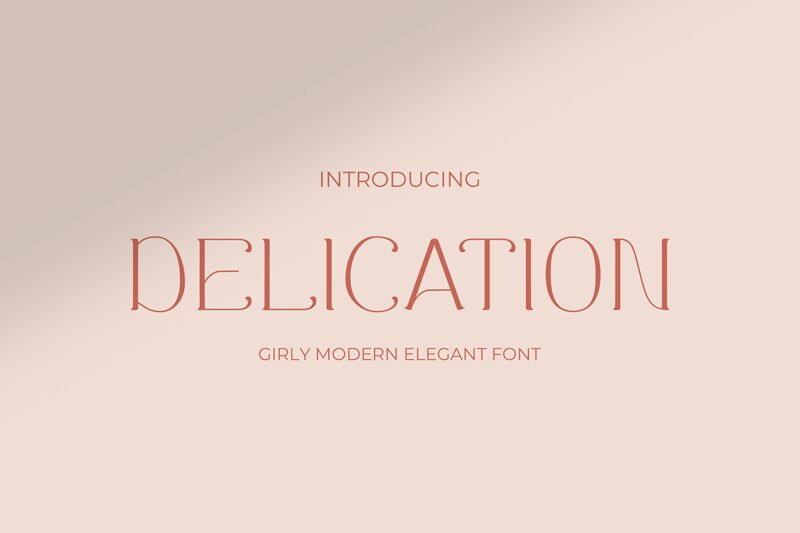
Delication
Delication font by Pinisiart is a free ight decorative serif display font. It stands out with needle-thin hairlines, soft droplet terminals, and tall, poised letterforms that feel airy yet intentional. The contrast is whisper-light but precise, creating a graceful rhythm that reads like ink pulled with a fine nib—sleek, elegant, and a touch dramatic at large sizes.
Using Delication instantly signals luxury without shouting. This free font shines on boutique branding, perfume or skincare packaging, fashion posters, editorial titles, wedding stationery, and high-end menus. Generous counters keep it breathable, while the slender strokes add a couture edge. Pair with a clean geometric sans for body copy, and give it a little extra tracking when set above 36pt to let those curves glow.